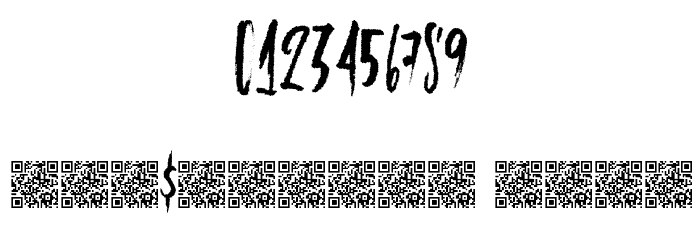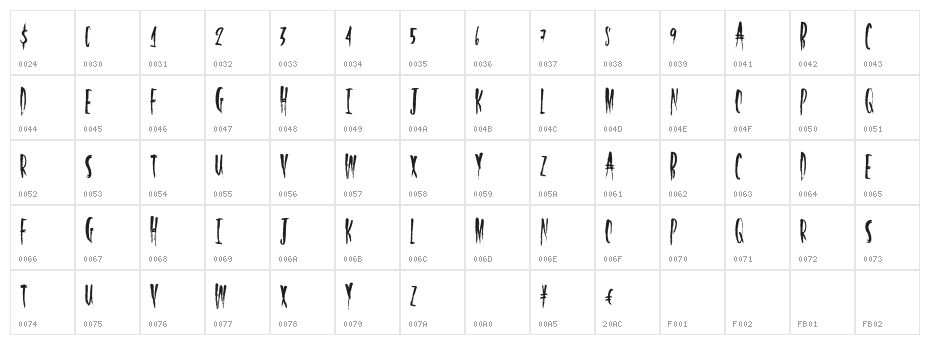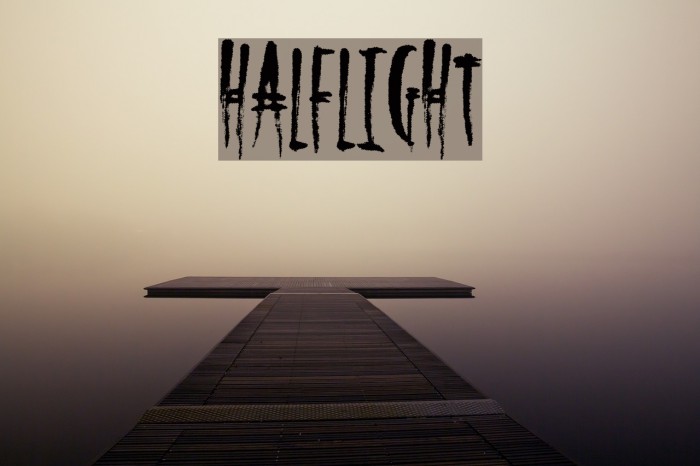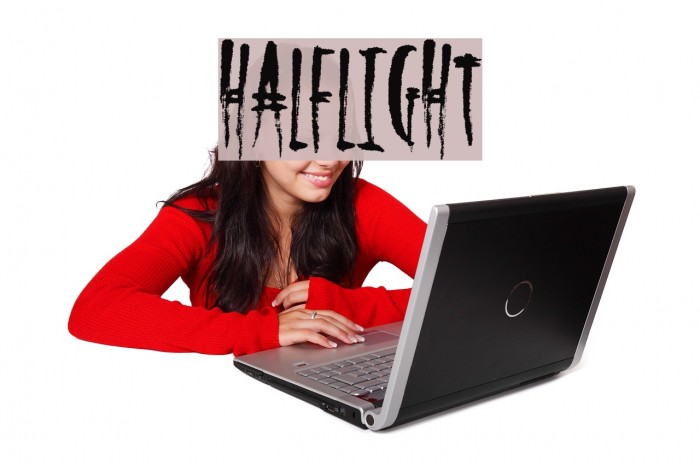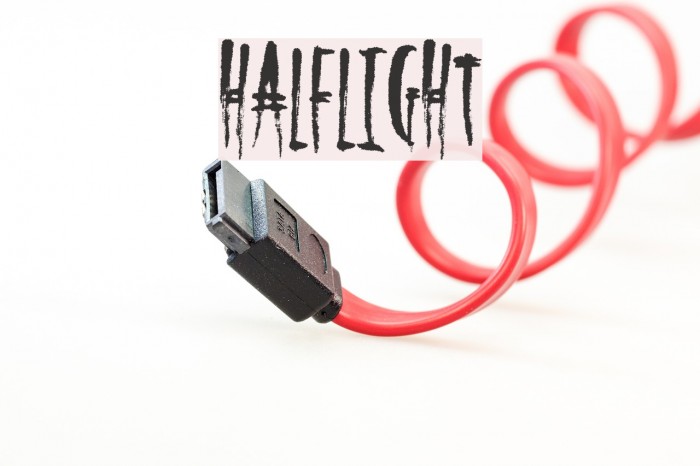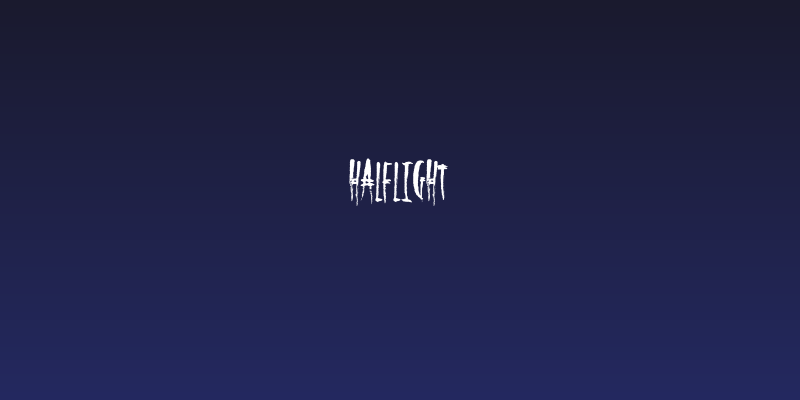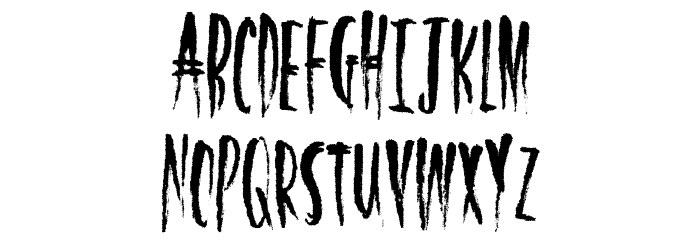
HalfLight Font
HalfLight Description
This font features a dramatic and edgy style with elongated, jagged strokes that give it a distressed and grungy appearance. The letters appear as if they are dripping or melting, adding a sense of movement and intensity. The uppercase and lowercase characters maintain a consistent height, creating a uniform look despite the chaotic design. The numbers and special characters follow the same aesthetic, ensuring a cohesive visual theme. This font is ideal for projects that require a bold and unconventional look, such as horror-themed designs, music album covers, or edgy branding materials.
| Proposed Projects | Ideal for horror-themed designs, edgy branding, and music album covers. |